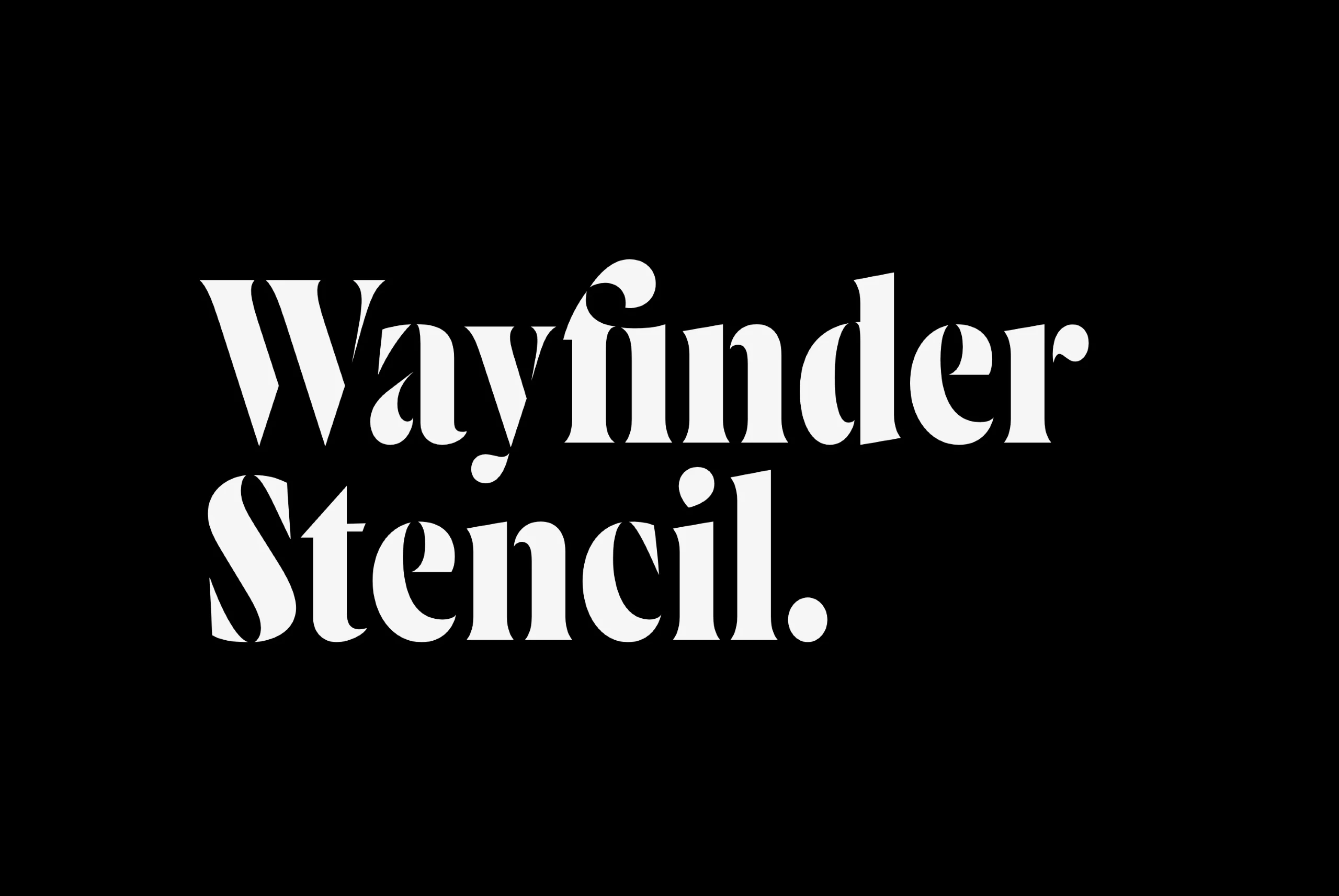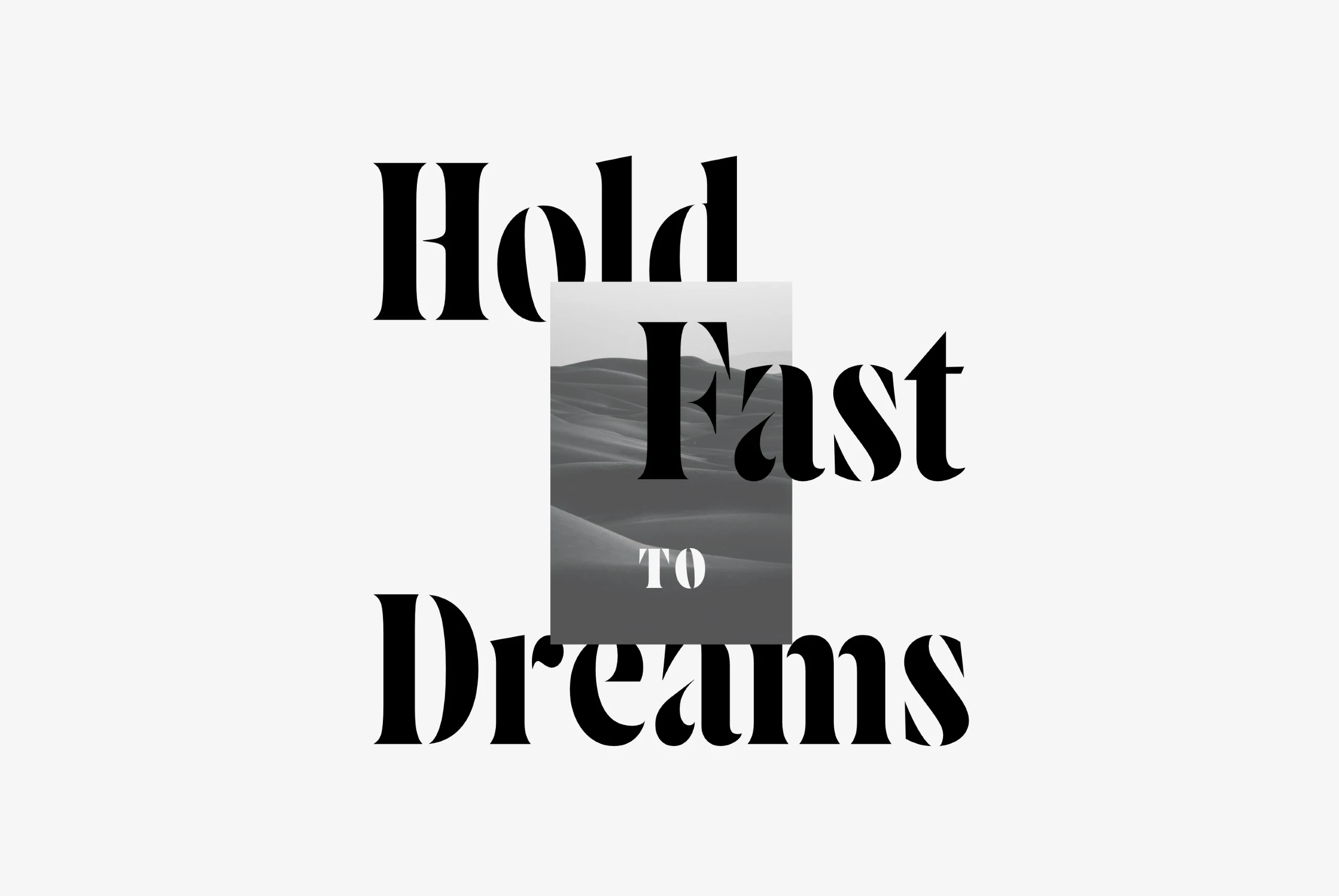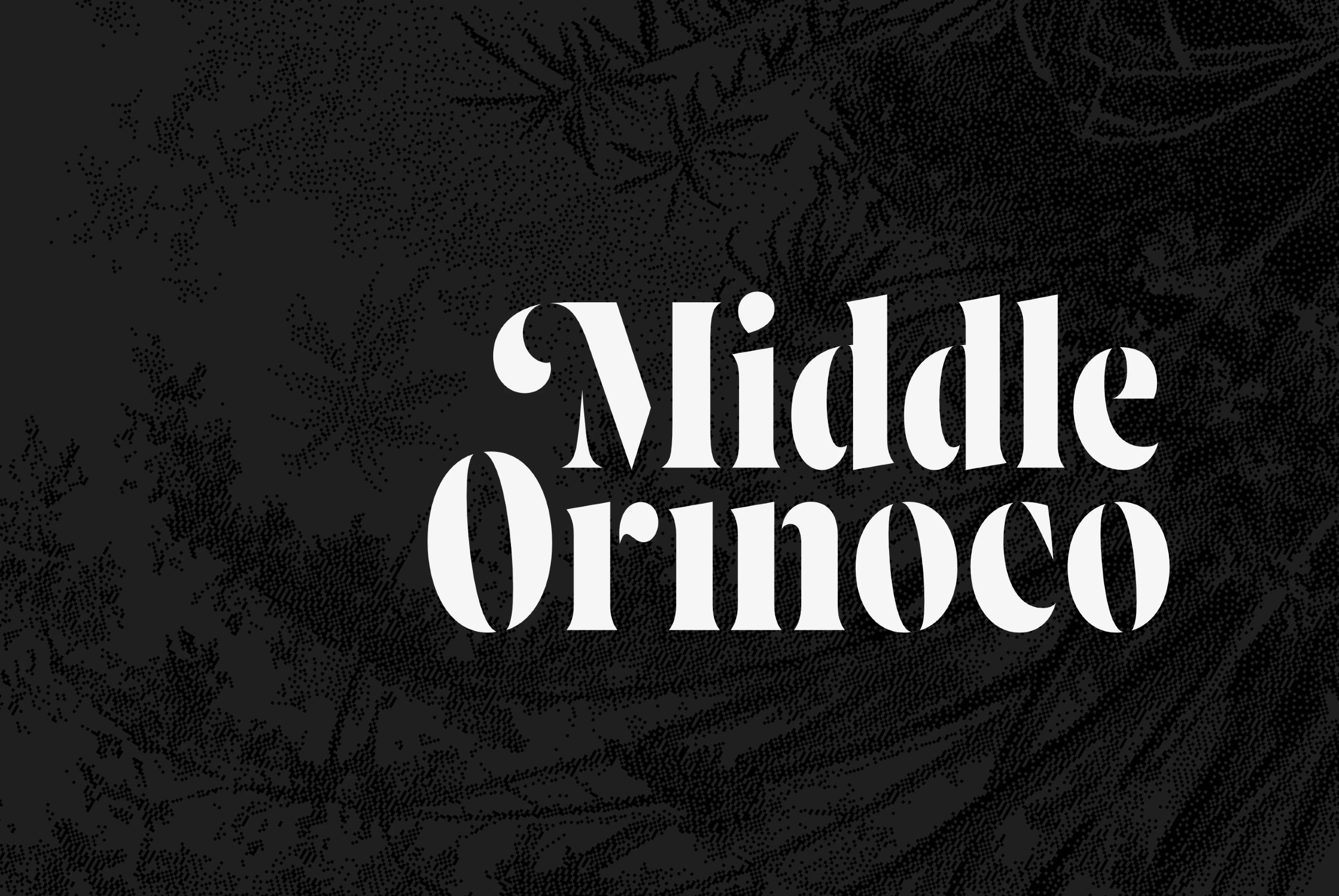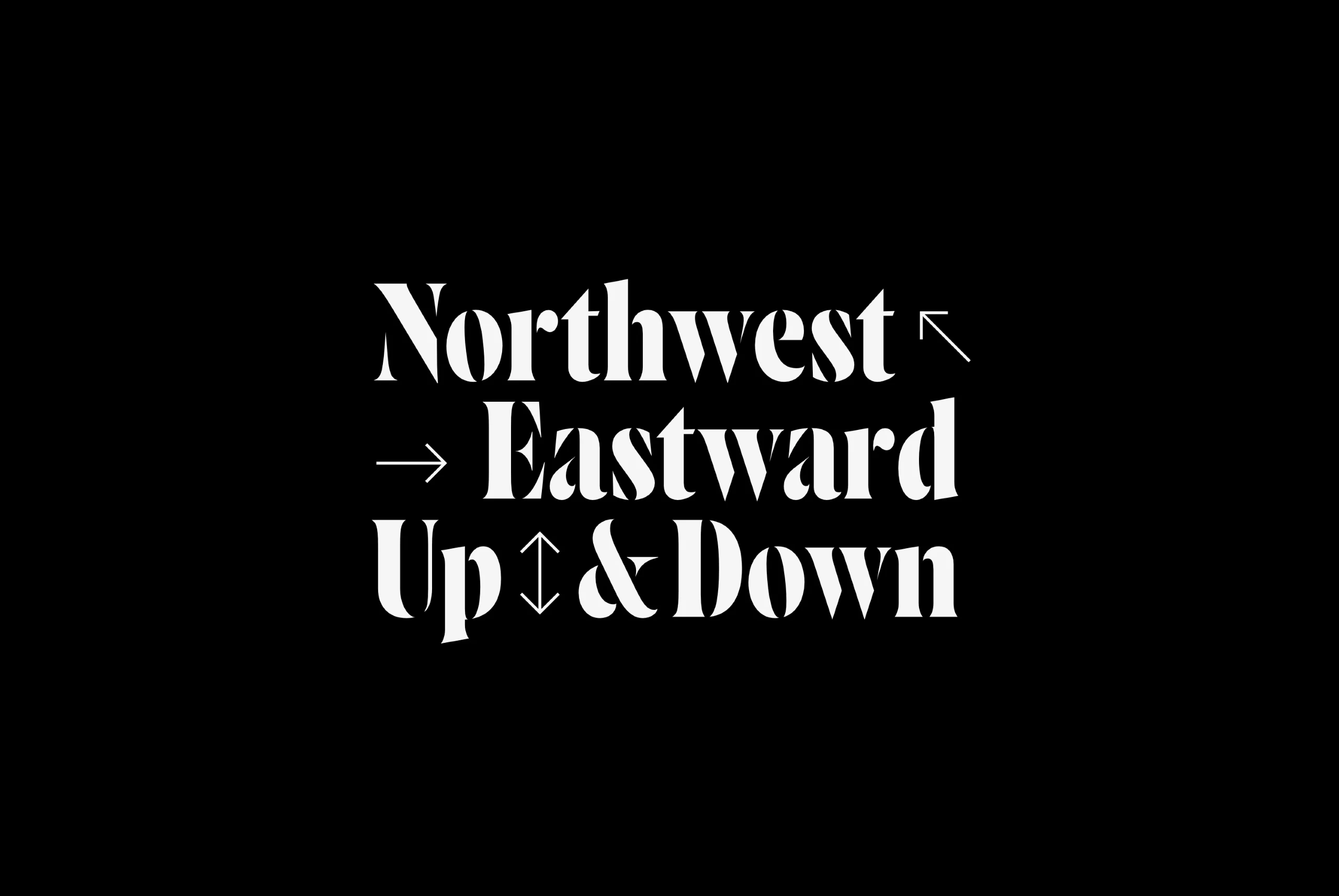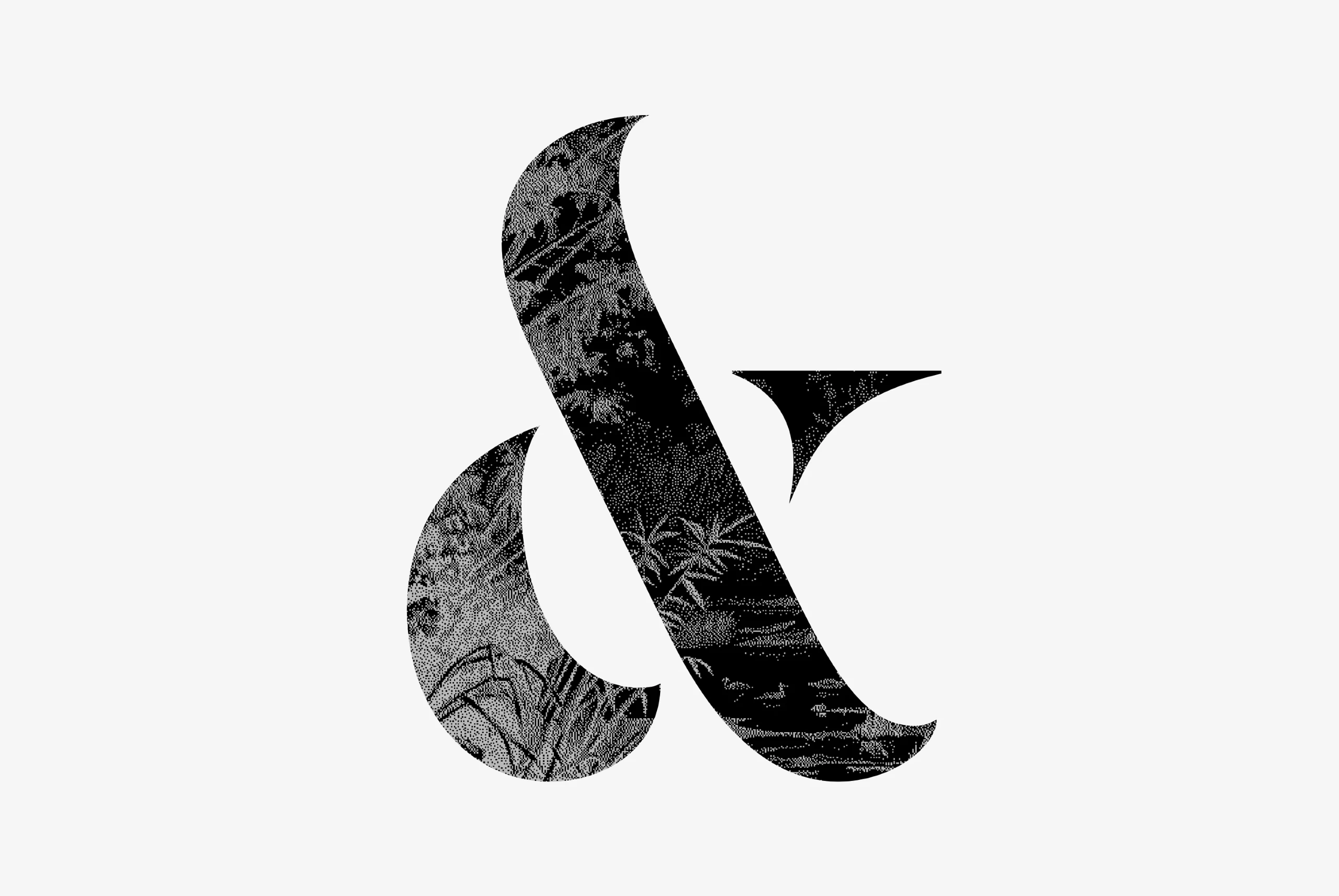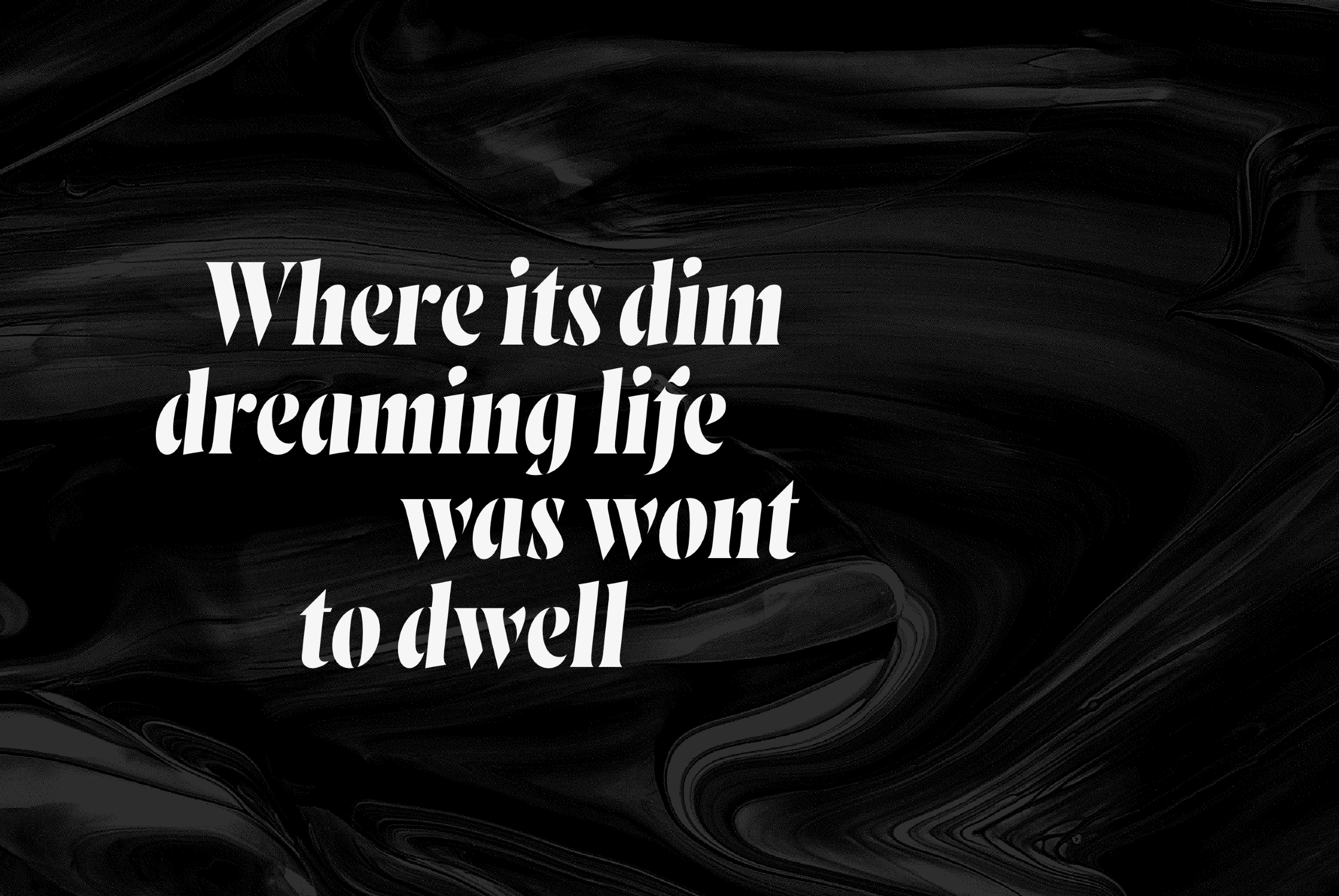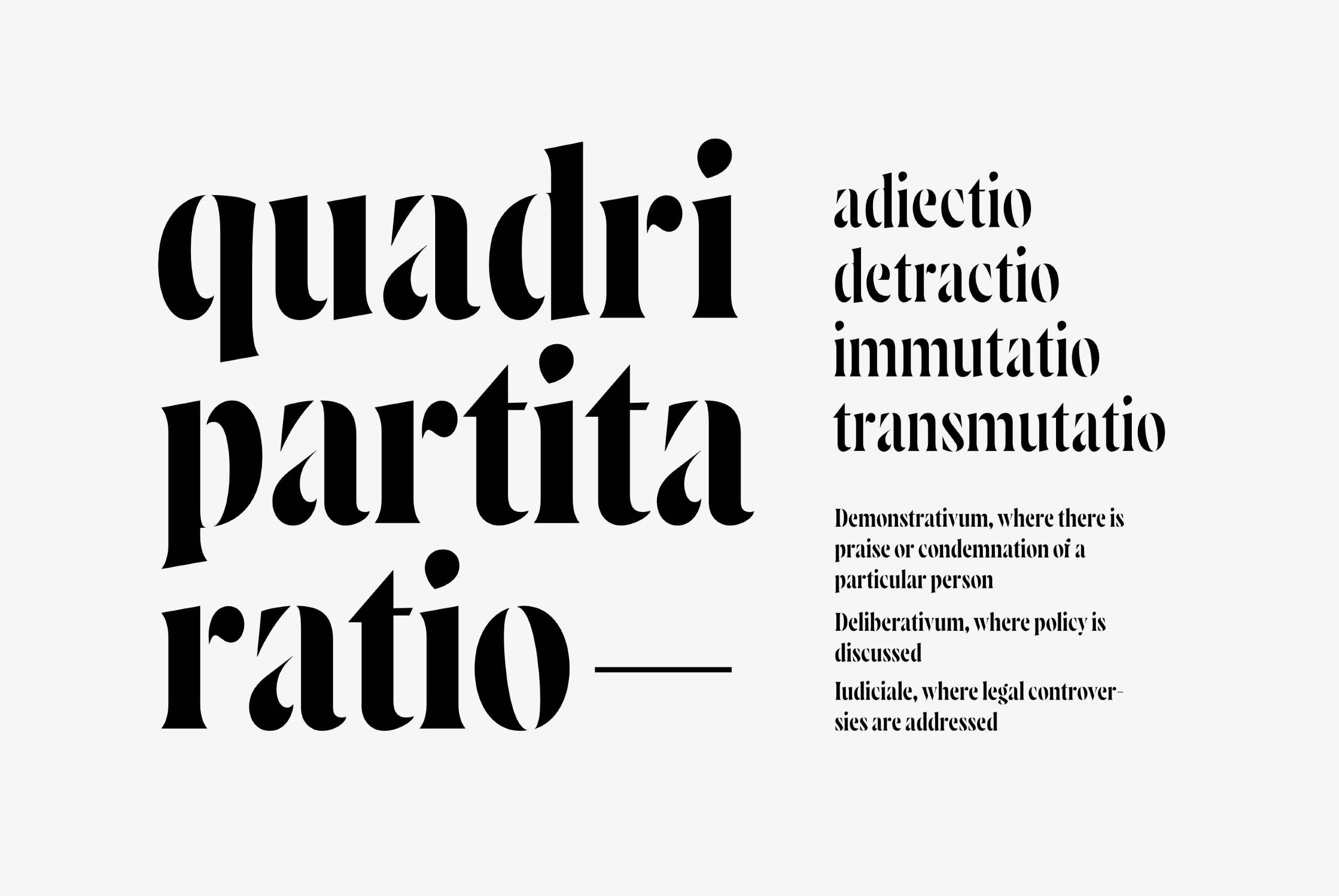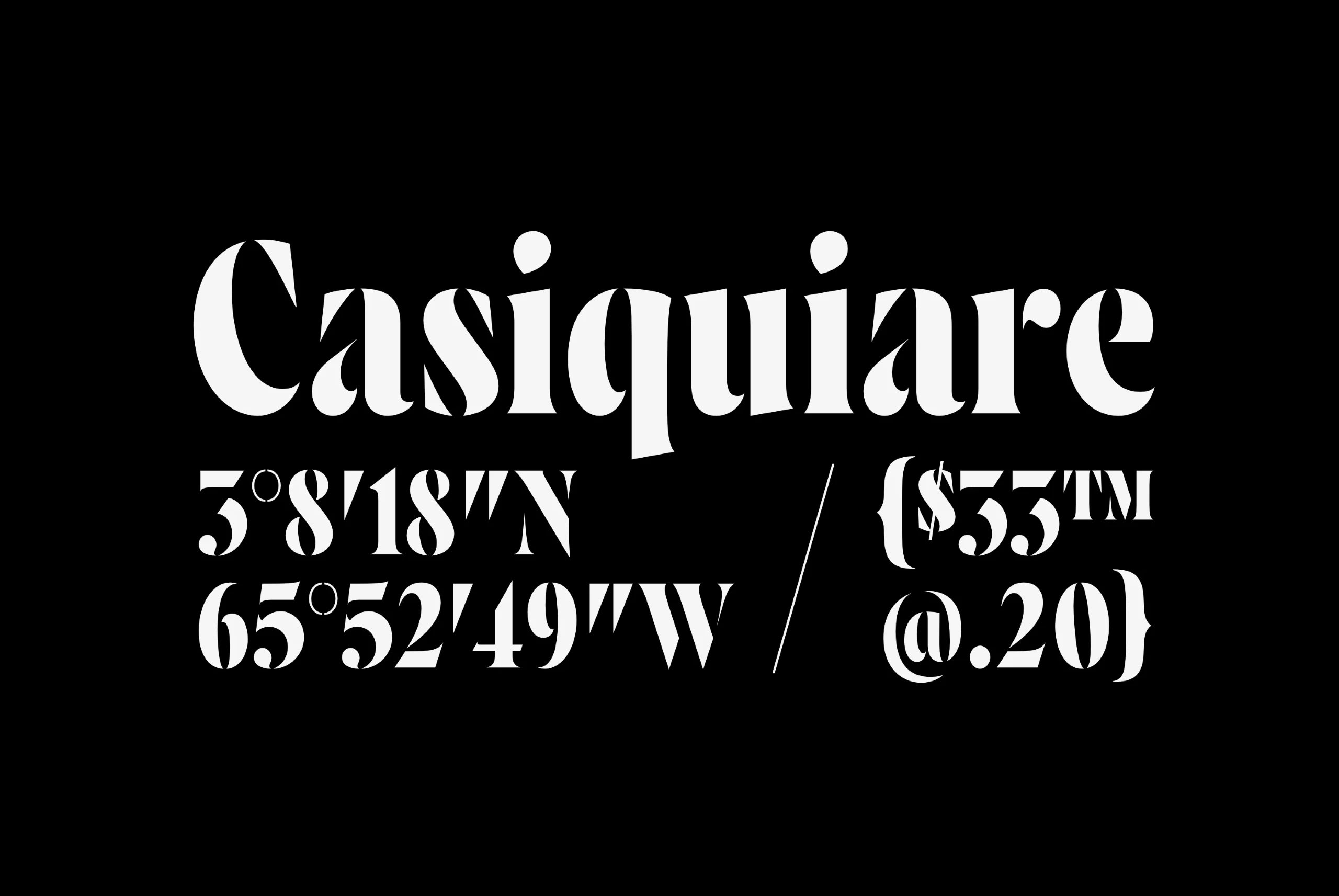
Wayfinder Stencil
Wayfinder Stencil Font Family
Wayfinder Stencil CF is a stencil serif built for branding, logos, and headlines. Its dramatic curves and contrast are perfect for fashion, tech, art, food, and packaging. Seven weights and italics provide a wide range of elegant applications.
seven Weights in Latin & Stylistic Sets • Swashes Script
Wayfinder Stencil font by Connary Fagen Fonts — the words “Wayfinder Stencil.” in a high-contrast serif with stencil breaks on some letters, including the lowercase “f” and “c”Wayfinder Stencil font by Connary Fagen Fonts — the words “Hold Fast To Dreams” in a high-contrast serif, with “Fast” and “To” overlaid on a grayscale photo of sand dunesWayfinder Stencil font by Connary Fagen Fonts — the words “Middle Orinoco” in a high-contrast serif with dramatic curves, set against a dark background with a subtle textured pattern.Wayfinder Stencil font by Connary Fagen Fonts — the upright serif words “My soul is a hidden orchestra” in high-contrast letterforms, over a faint background image of a birdWayfinder Stencil font by Connary Fagen Fonts — the words “Northwest”, “Eastward”, and “Up & Down” in a high-contrast serif with directional arrows next to each word.Wayfinder Stencil font by Connary Fagen Fonts — a large ampersand symbol with a pixelated, high-contrast black and white image of foliage inside its shapeWayfinder Stencil font by Connary Fagen Fonts — the italic serif phrase “Where its dim dreaming life was wont to dwell”Wayfinder Stencil font by Connary Fagen Fonts — the words “quadri partita ratio” in large, bold, upright serif letters, and to the right, smaller italic serif text listing “adiectio detractio immutatio transmutatio” and three descriptive clauses below.Wayfinder Stencil font by Connary Fagen Fonts — the word “Casiquiare” in a large, high-contrast serif, with smaller lines of numbers and symbols below it, also in a high-contrast serif.